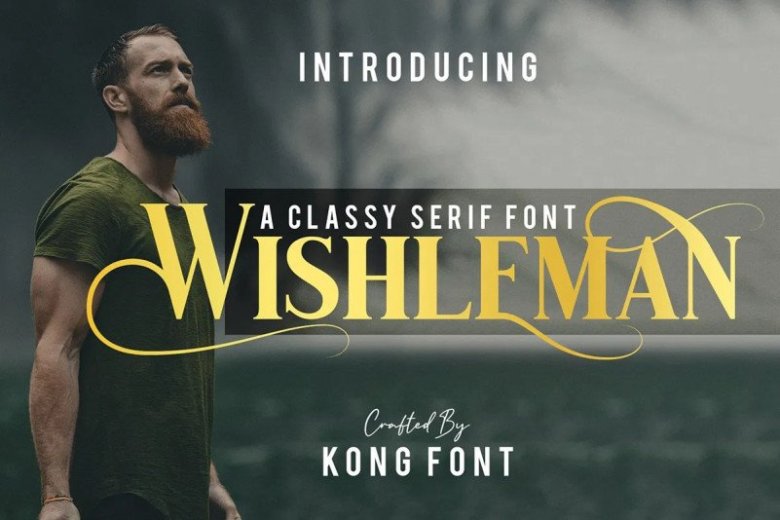
Wishleman Serif Font
Hello everyone. Wishleman Serif Font is a stalistic classic font with a unique character designed by fontkong. It have lot of alternates and ligature choices with standard latin language coverage. This font, well-suited for headline and any project, like branding, print template, logo and more.